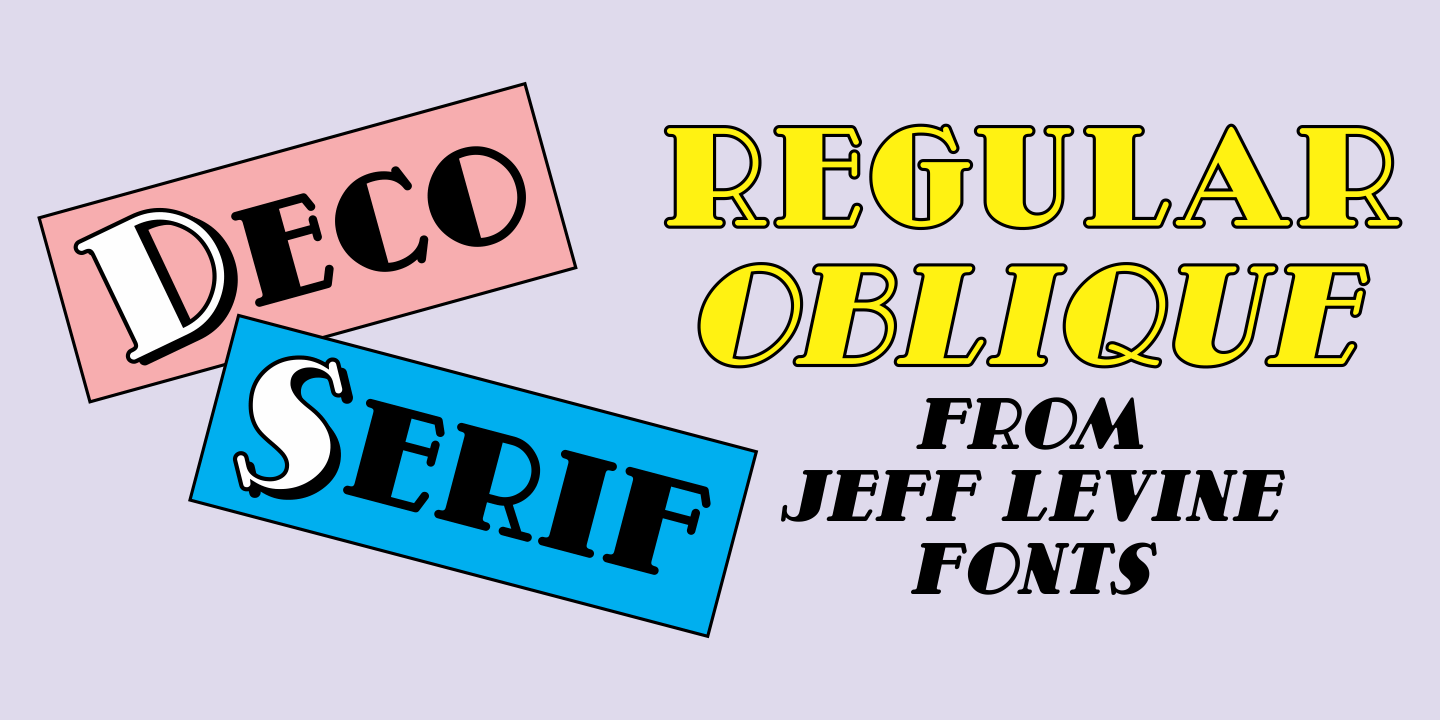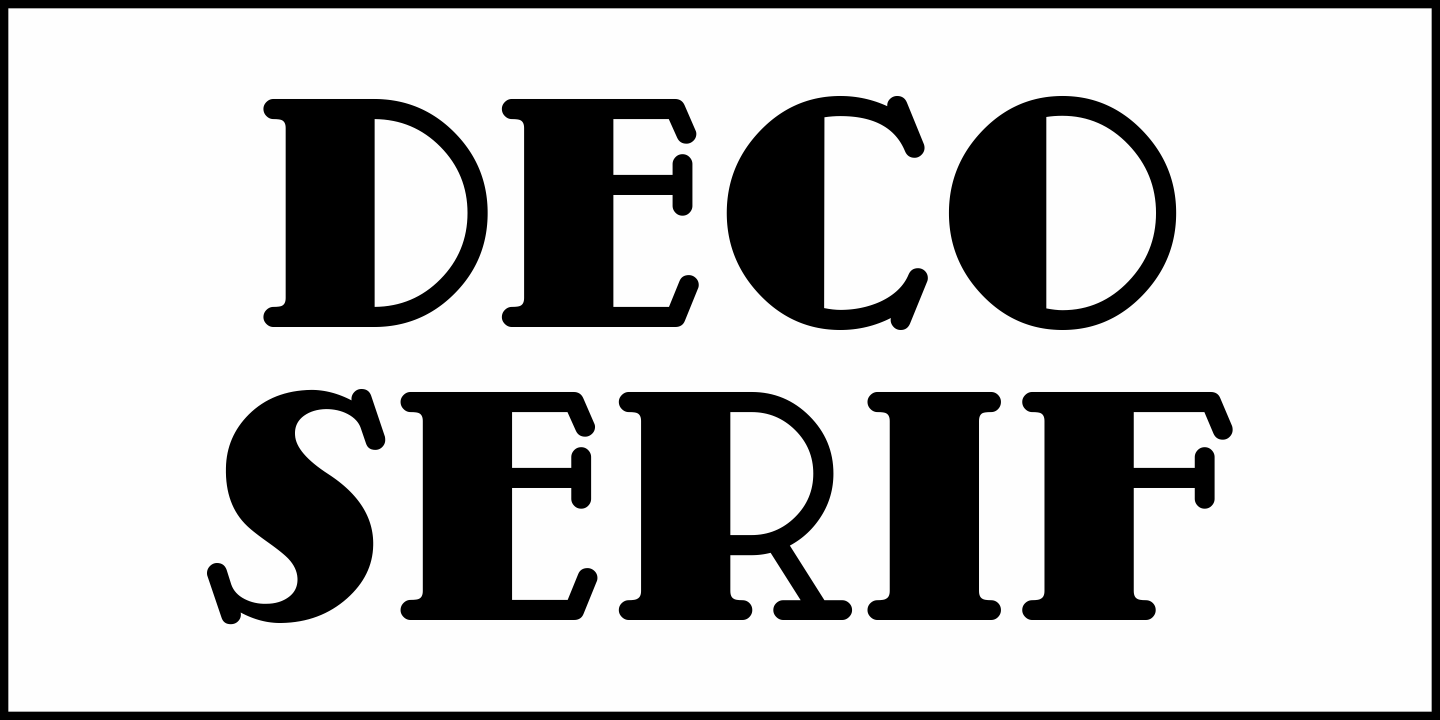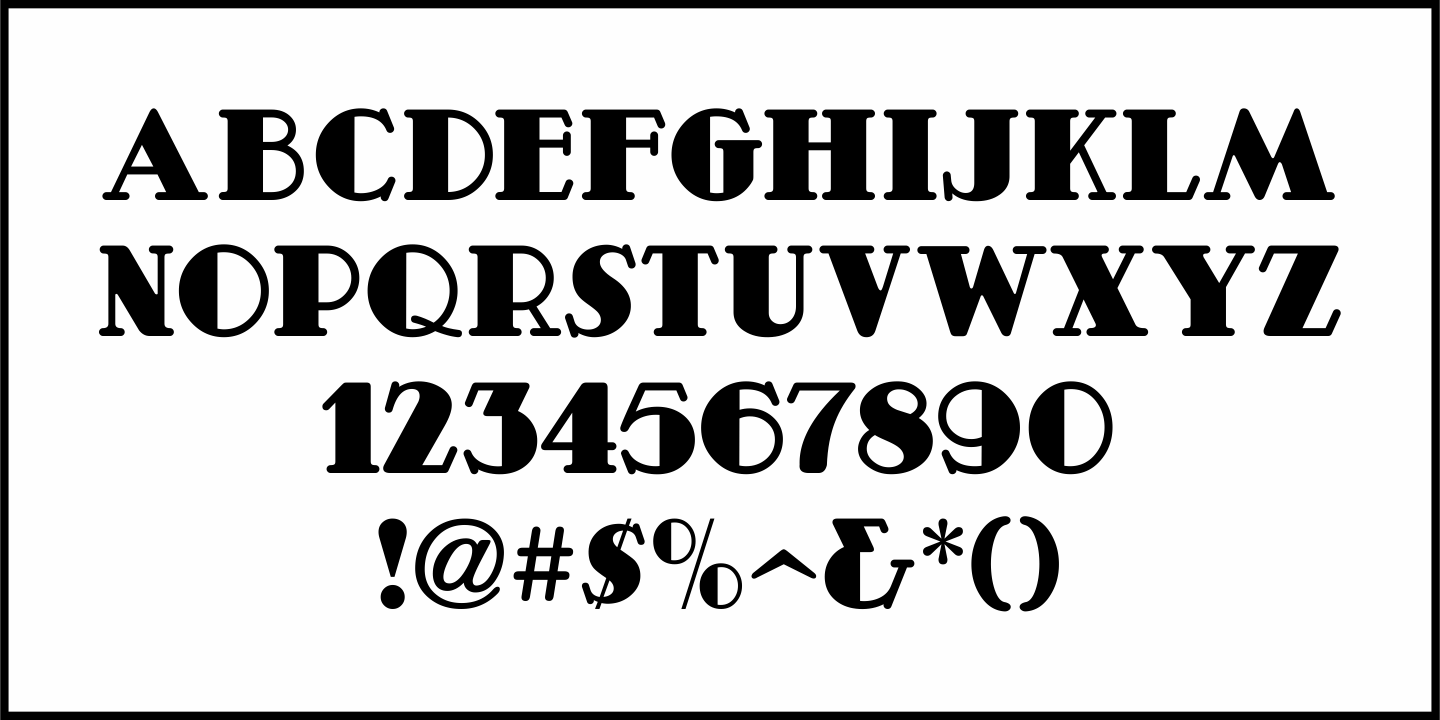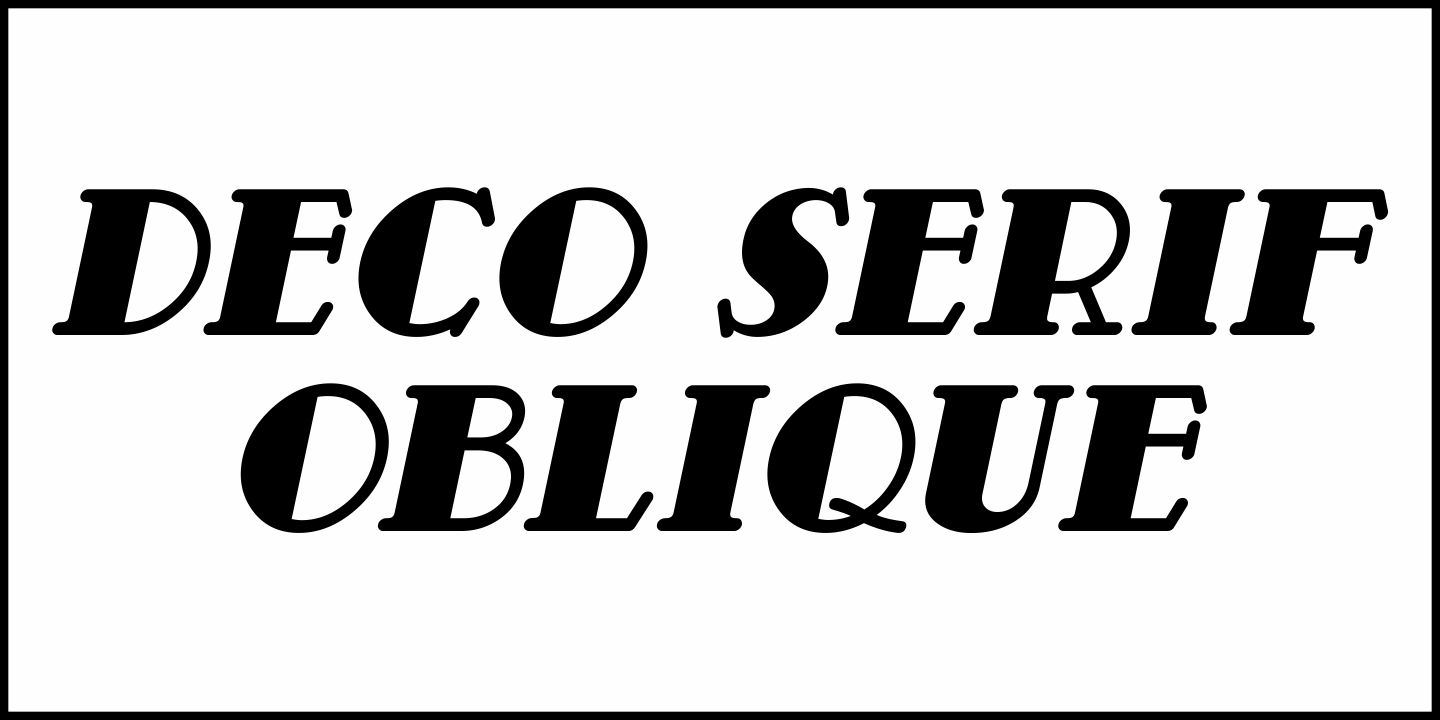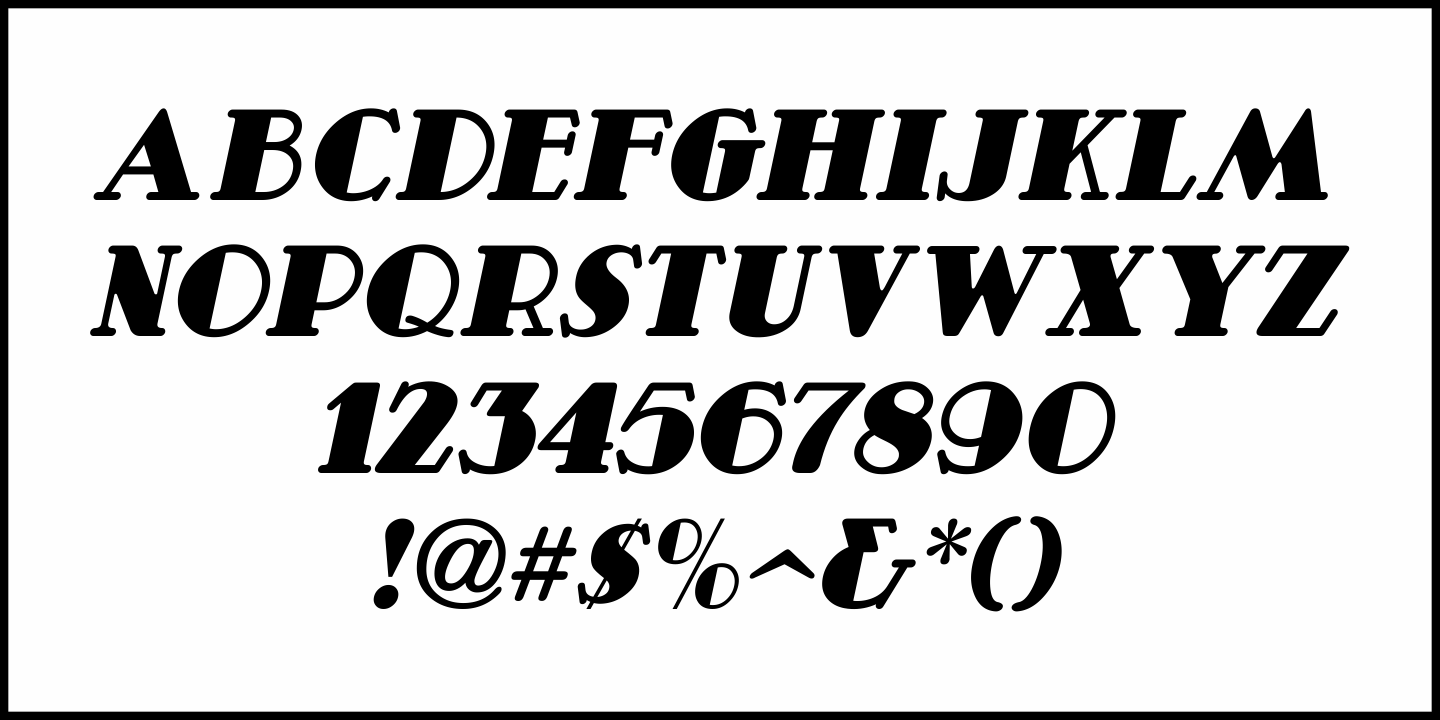
Deco Serif
Deco Serif JNL (available in both regular and oblique versions) is a hand lettered thick and thin Art Deco type style with rounded serifs, and was found within the pages of the 1942 book "Simplified Show Card Writing"by Carl Rousseau Havighorst.
Deco Serif by Jeff Levine Fonts